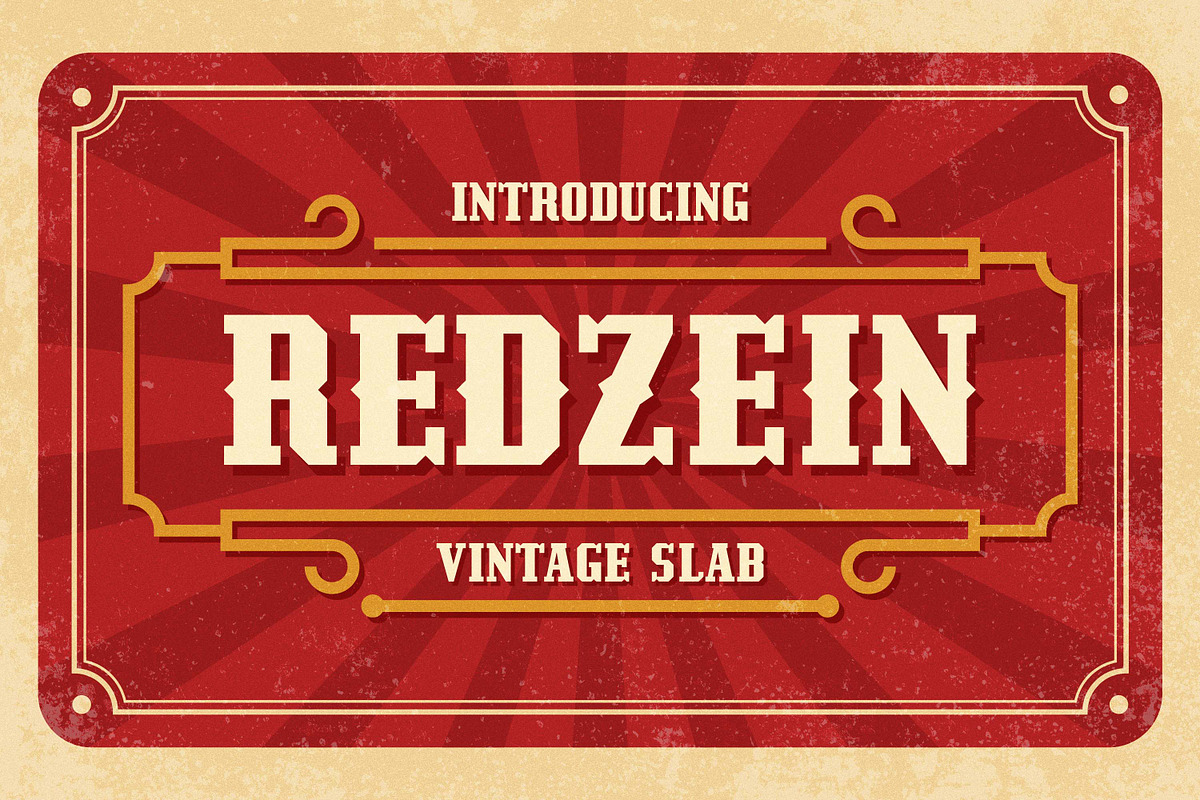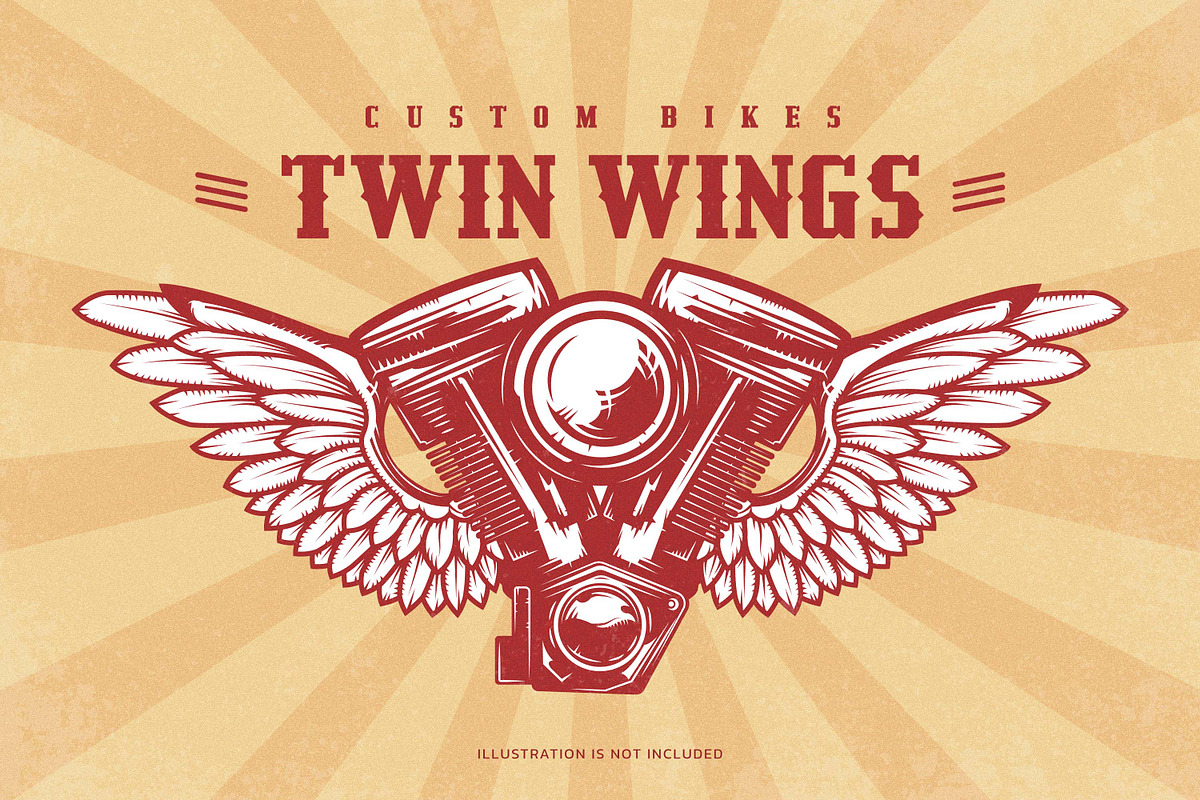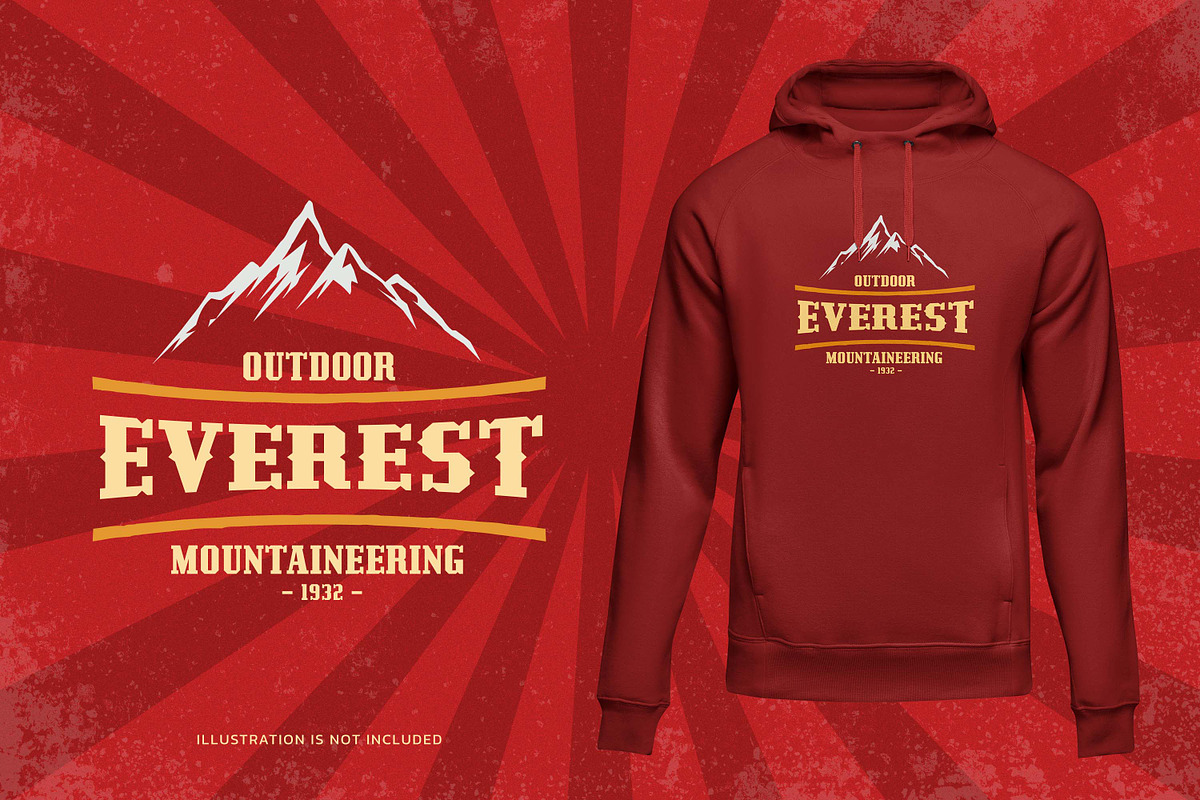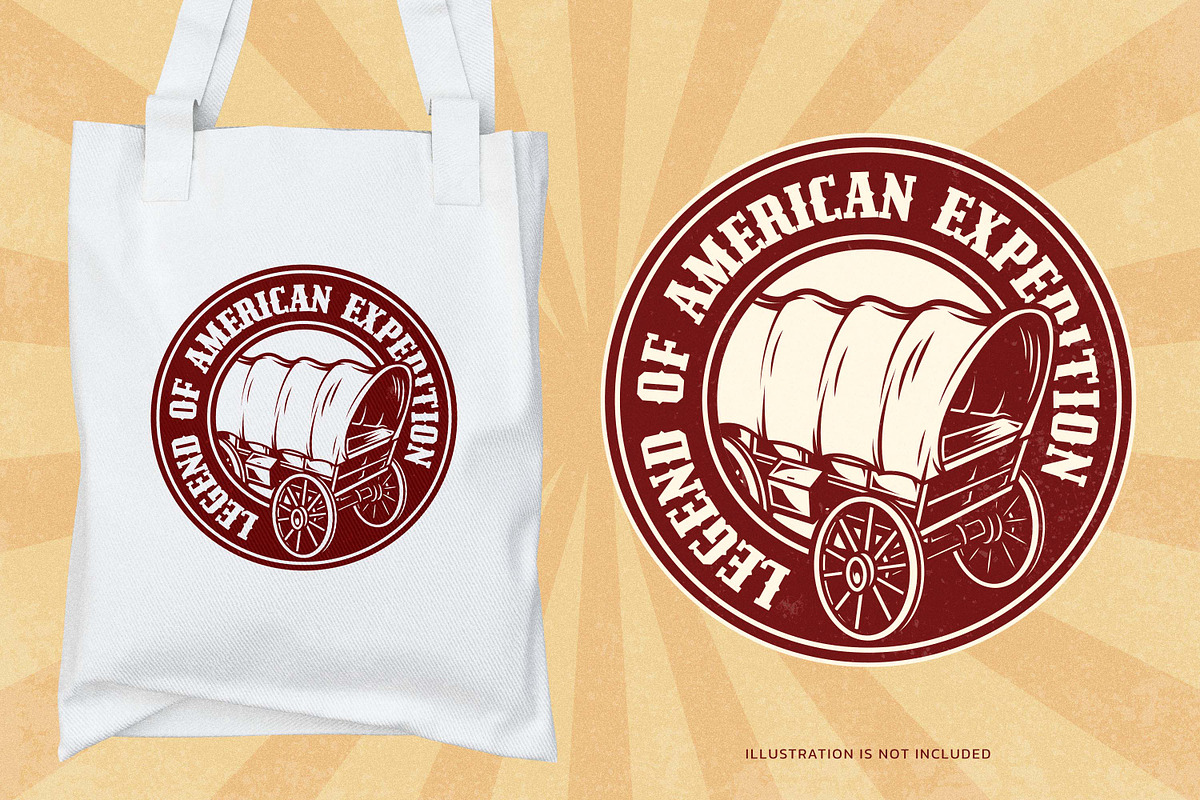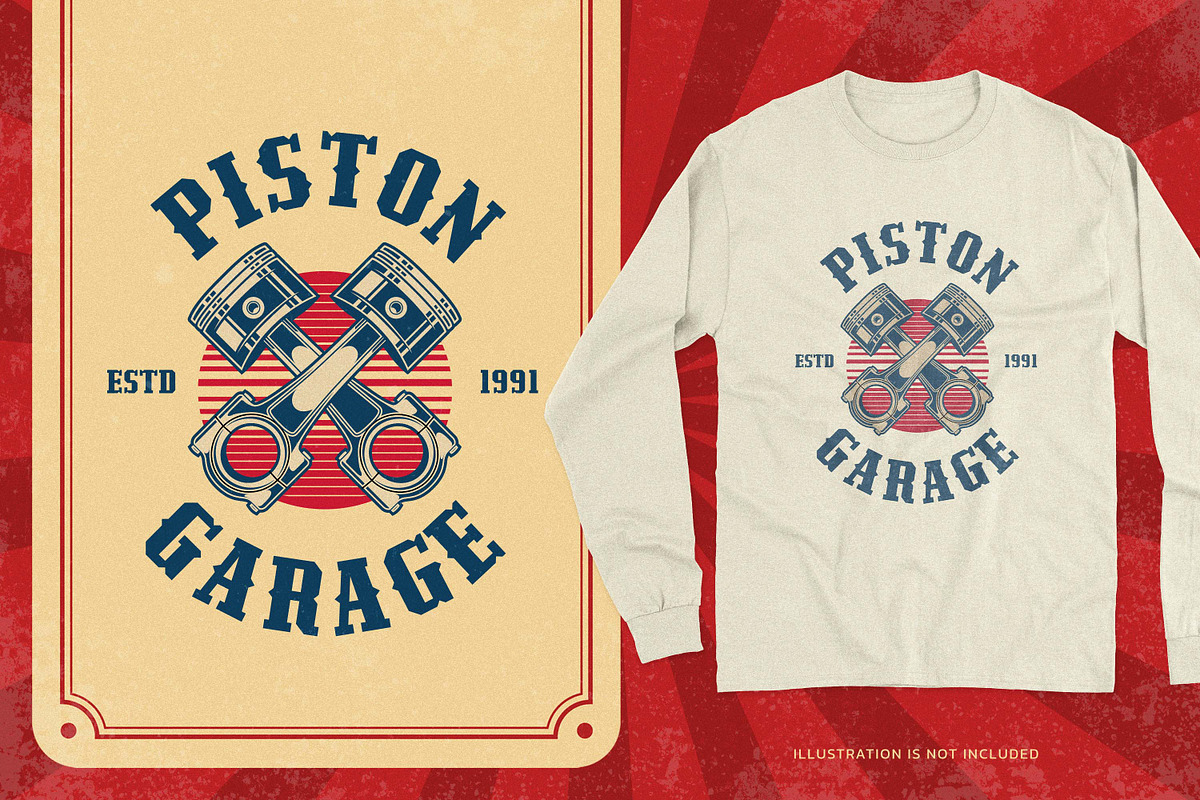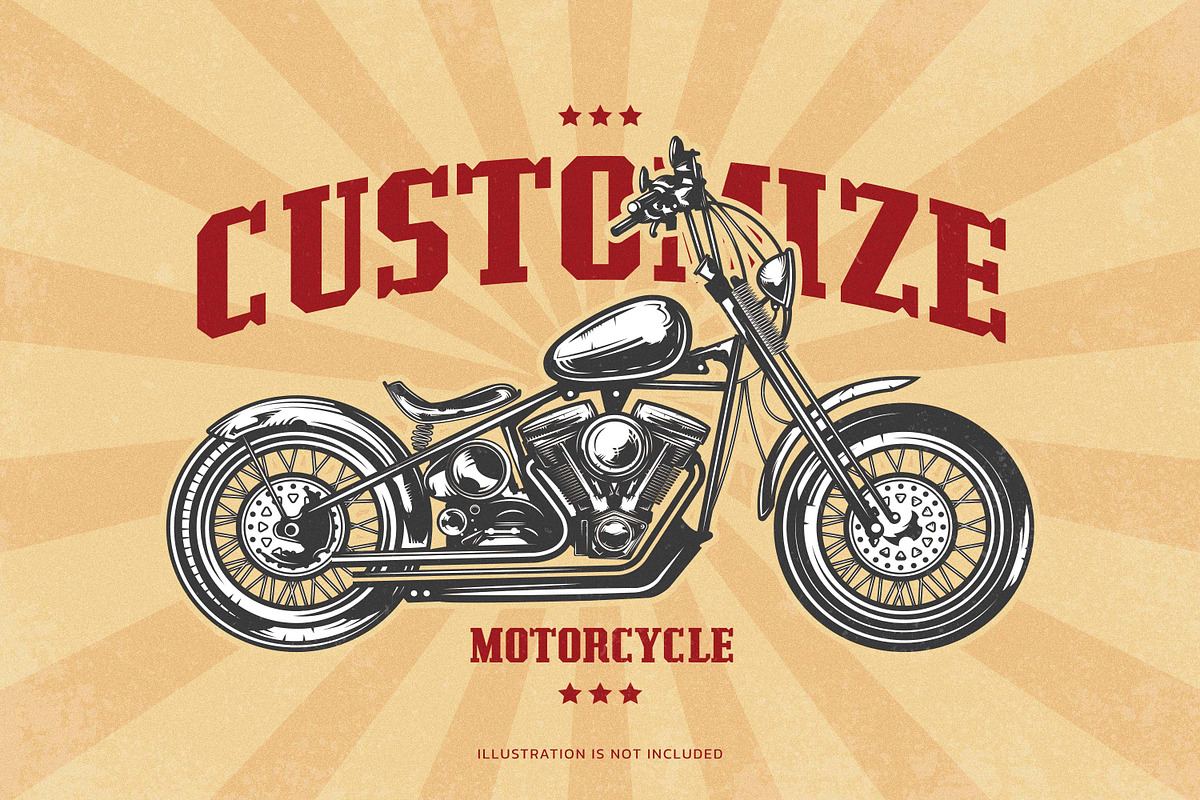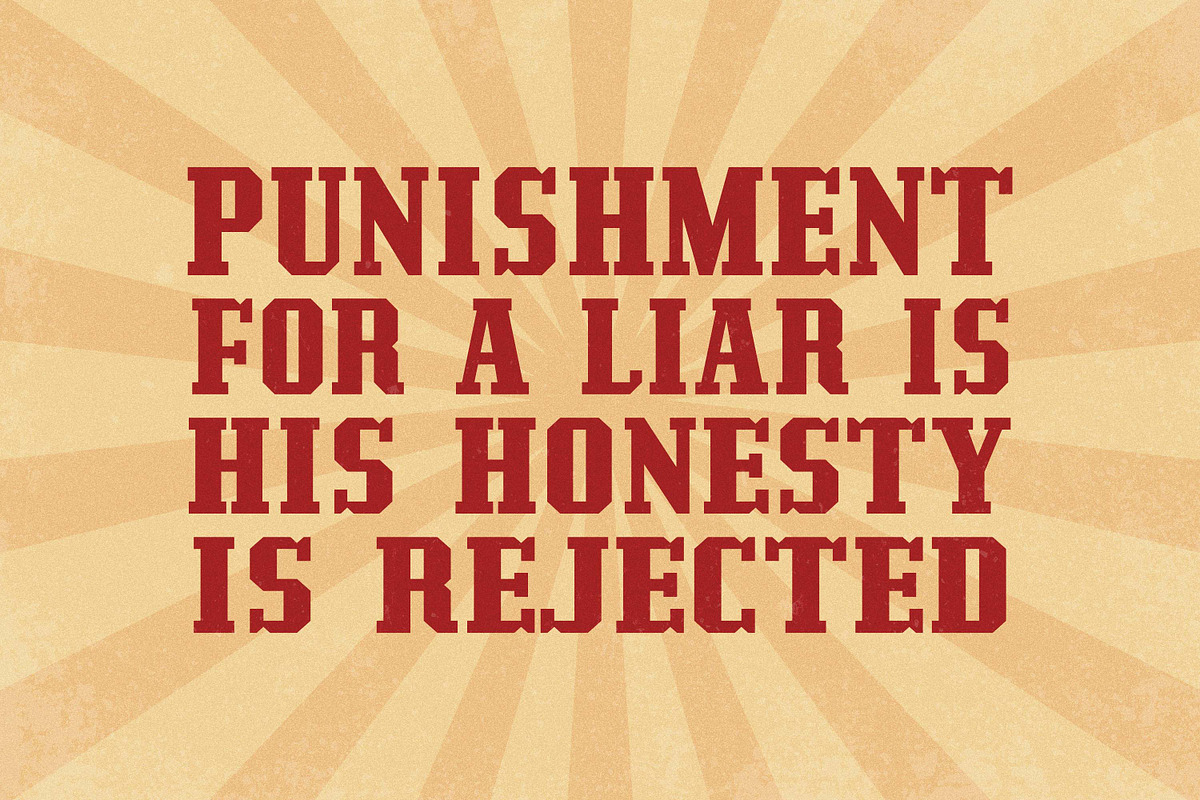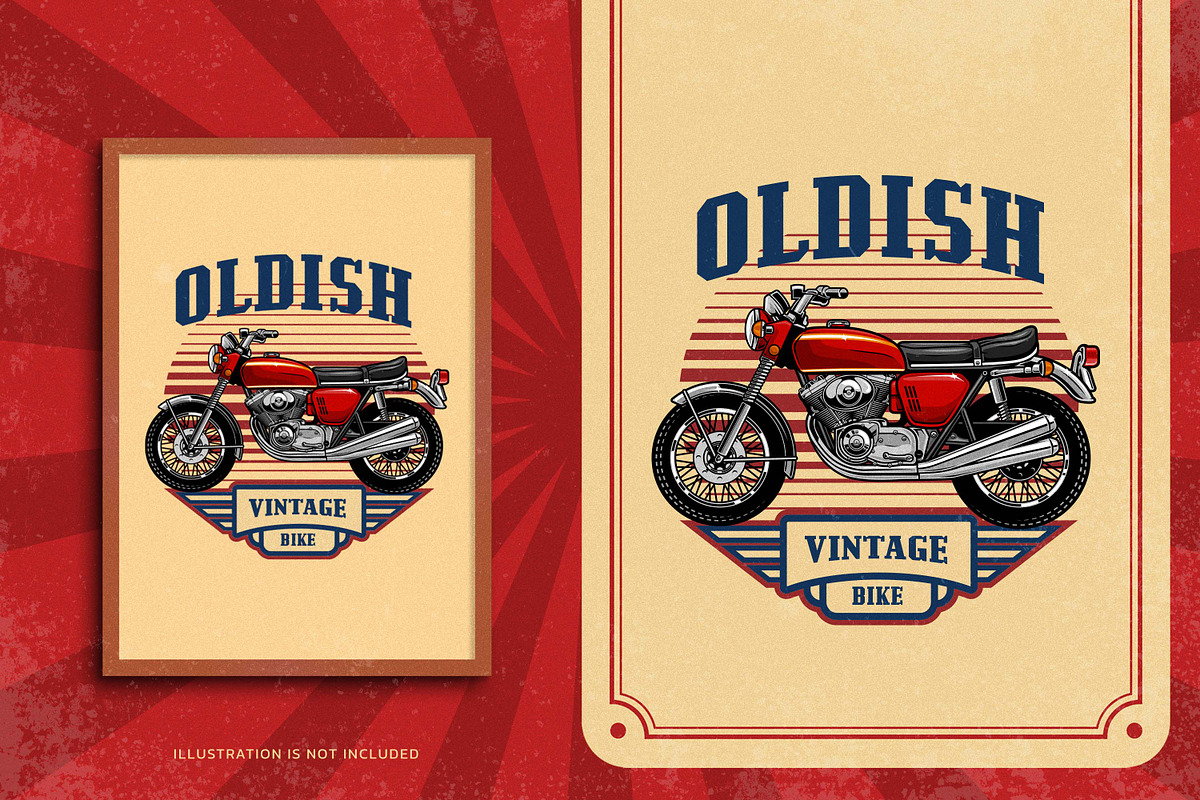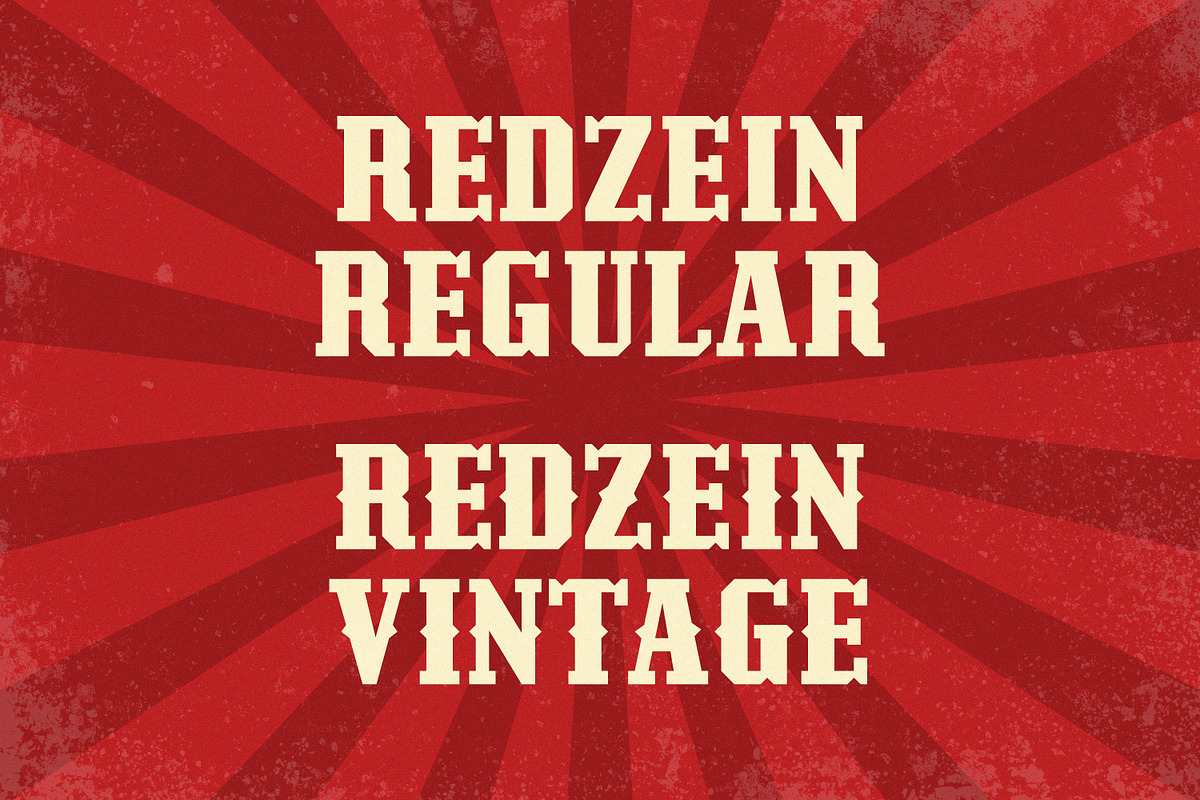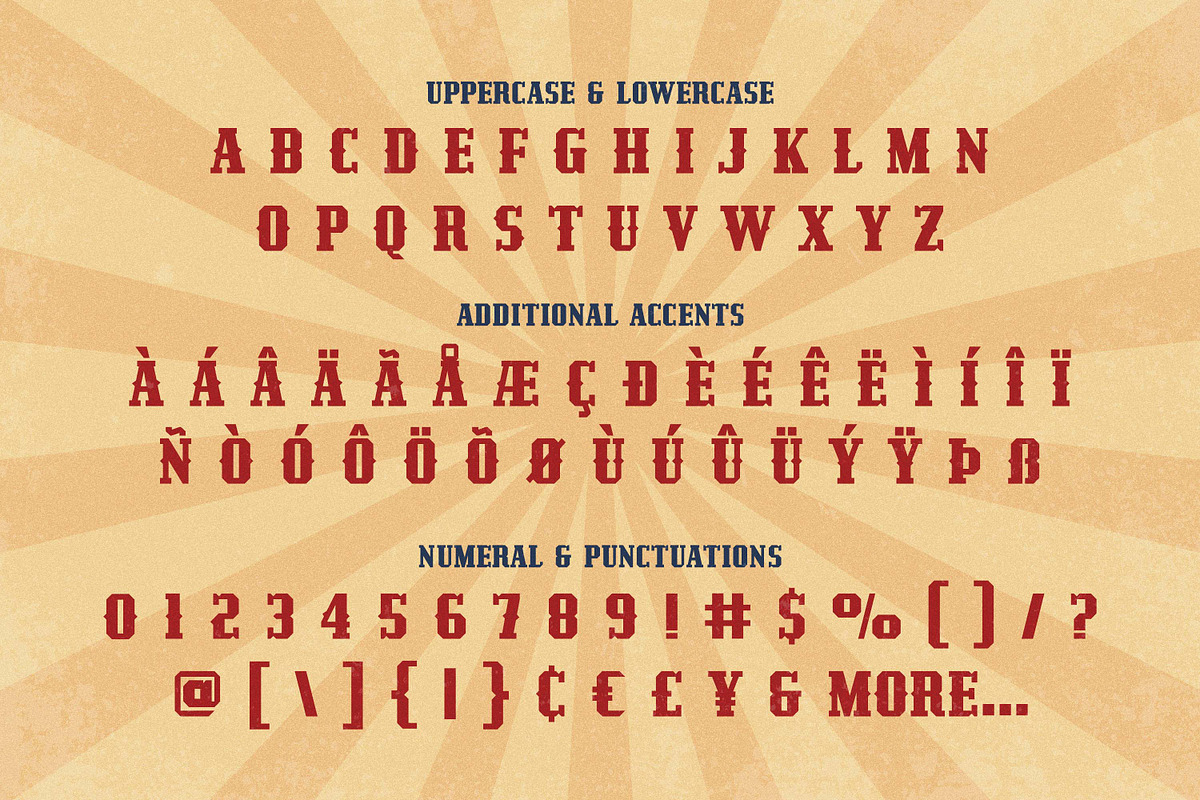
Redzein - Vintage Slab
Introducing our latest Vintage Slab called Redzein Retro Display Slab with vintage taste can make your logotype become more interesting. inspired by the decorative arts and architecture movement
Redzein fonts is perfect for your project and allows you to create designs, headlines, posters, logos, badges, t-shirts and many more that are beautiful. It is also best used for posts, logos, posters, certificates, labels and more.